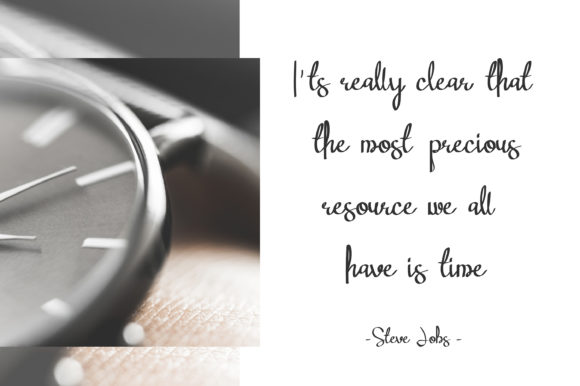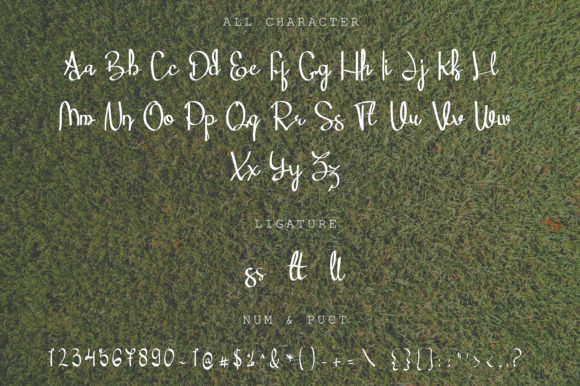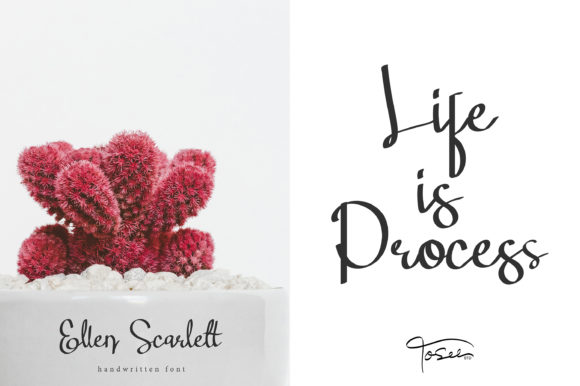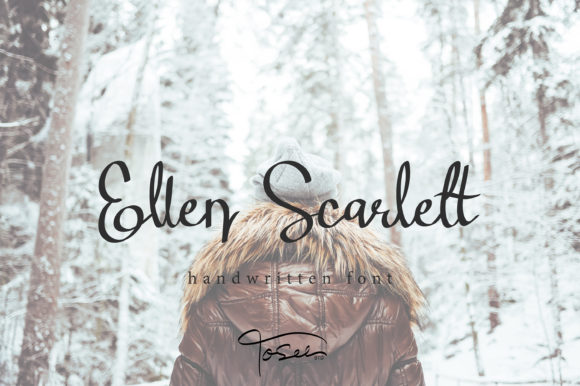
Ellen Scarlett Font
About Ellen Scarlett Font
Ellen Scarlett is script font made with natural hand movement. It makes your design look elegant, minimalist, and modern.